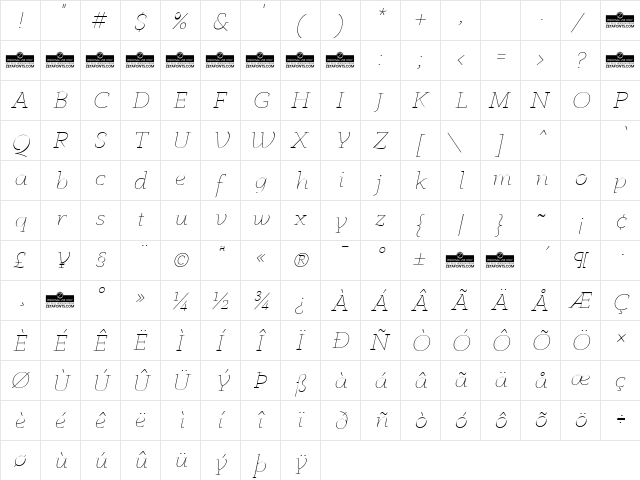
Anaphora Trial Thin Italic Font Preview
| Foundry | Studio Kmzero |
| Designer | Francesco Canovaro |
Design Context for Anaphora Trial Typeface
Anaphora Trial takes a measured approach to typography — its balanced proportions and neutral character make it a reliable workhorse for both digital and print work. The dynamic lean of this cut emphasises speed and emphasis in any layout. Its slender proportions lend an understated elegance to any composition.